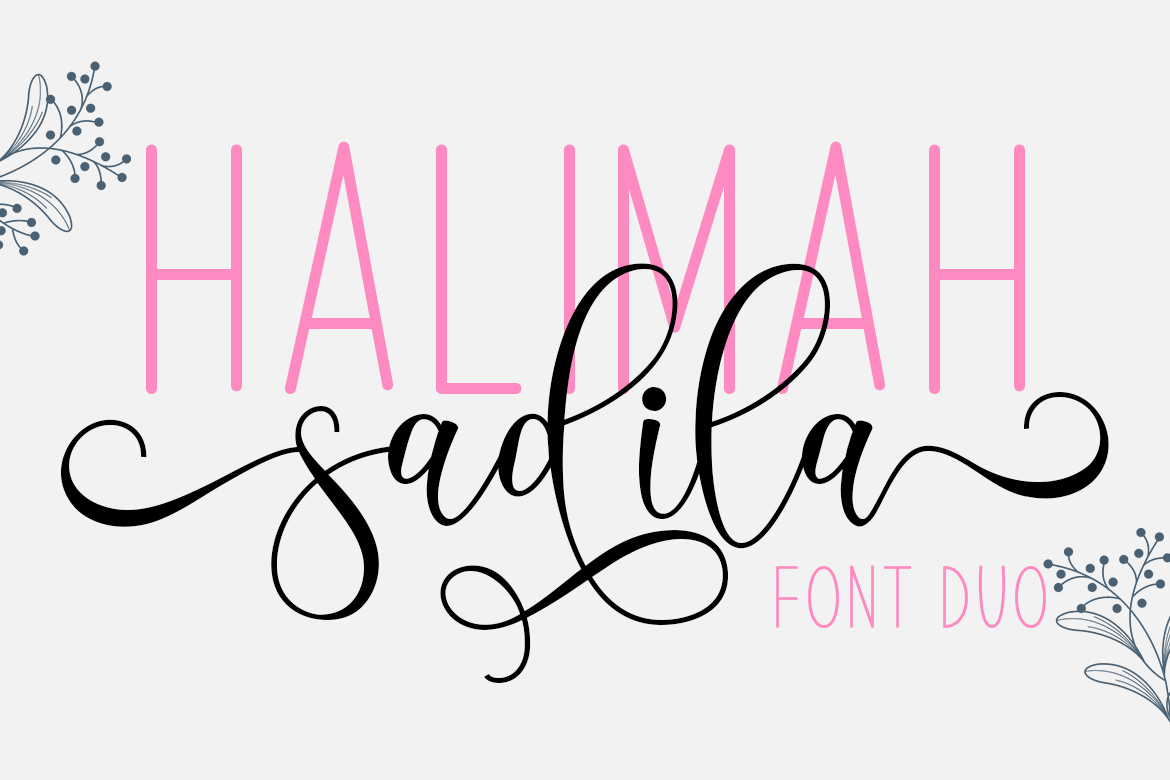
Halimah Sadila Script Font Duo
Halimah Sadila is a font duo combining modern calligraphy & fresh sans serif. Add this fresh and versatile font to any of your creations, both formal and informal, and you will love the impact it has on them. Halimah Sadila is PUA encoded which means you can access all of the glyphs and swashes with ease!